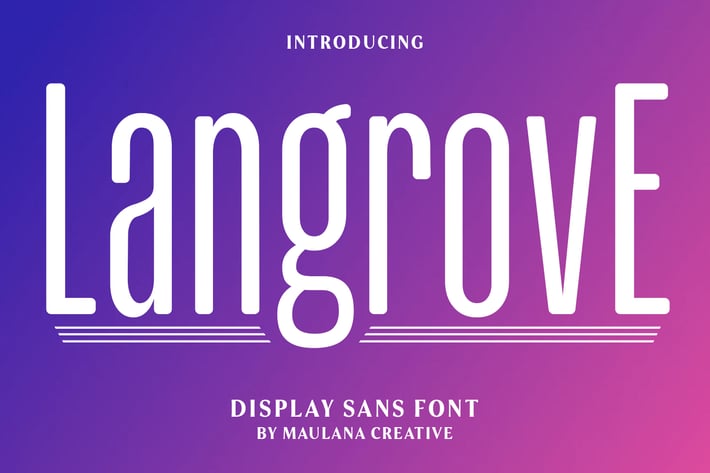
Langrove Sans Condensed Display Font
Langrove is a modern tall sans serif font. With medium stroke, fun character with a bit of ligatures and alternates. To give you an extra creative work. Langrove font support multilingual more than 100+ language. This font is good for logo design, Social media, Movie Titles, Books Titles, a short text even a long text letter and good for your secondary text font with script or serif. Make a stunning work with Langrove font.